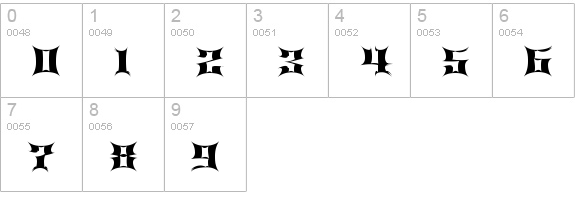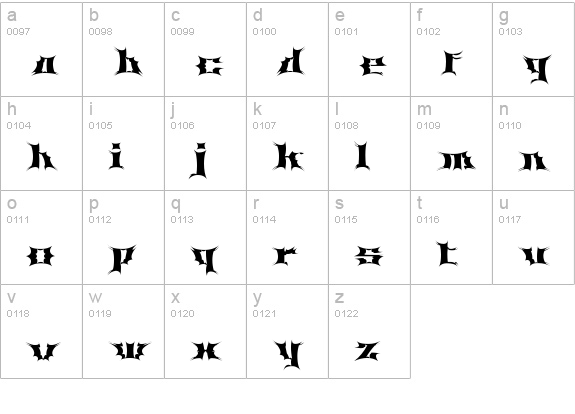
Corona s￿lyz Font Details
Corona Slyz font is a striking display typeface that exudes elegance and modernity. Its unique design features sharp angles and clean lines that make it perfect for creating eye-catching headlines and titles. The sleek and sophisticated appearance of this font will add a touch of professionalism to any project. Best of all, Corona Slyz font is completely free to use! You can download this stunning typeface at FontsMarket.com and start incorporating its bold and stylish characters into your designs today. Whether you're working on branding materials, posters, or social media graphics, Corona Slyz font will help you make a lasting impression. Don't miss out on the opportunity to elevate your projects with this elegant and versatile typeface!